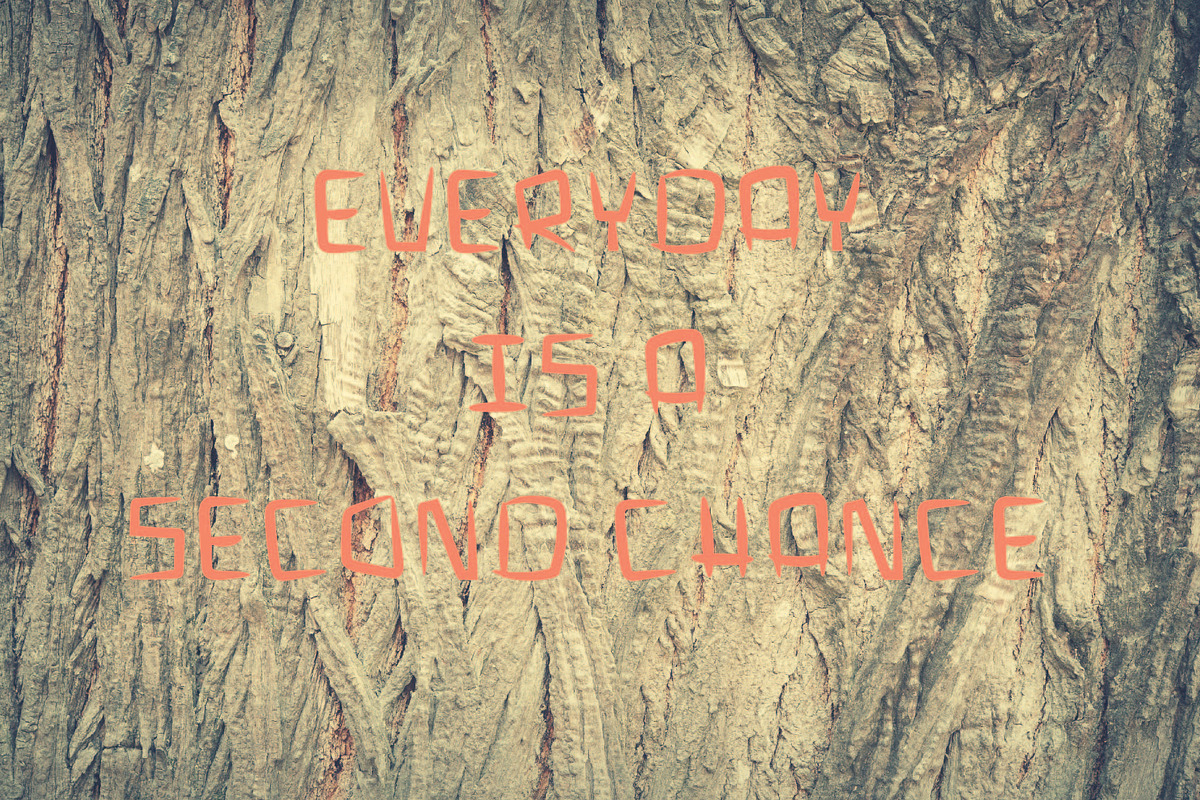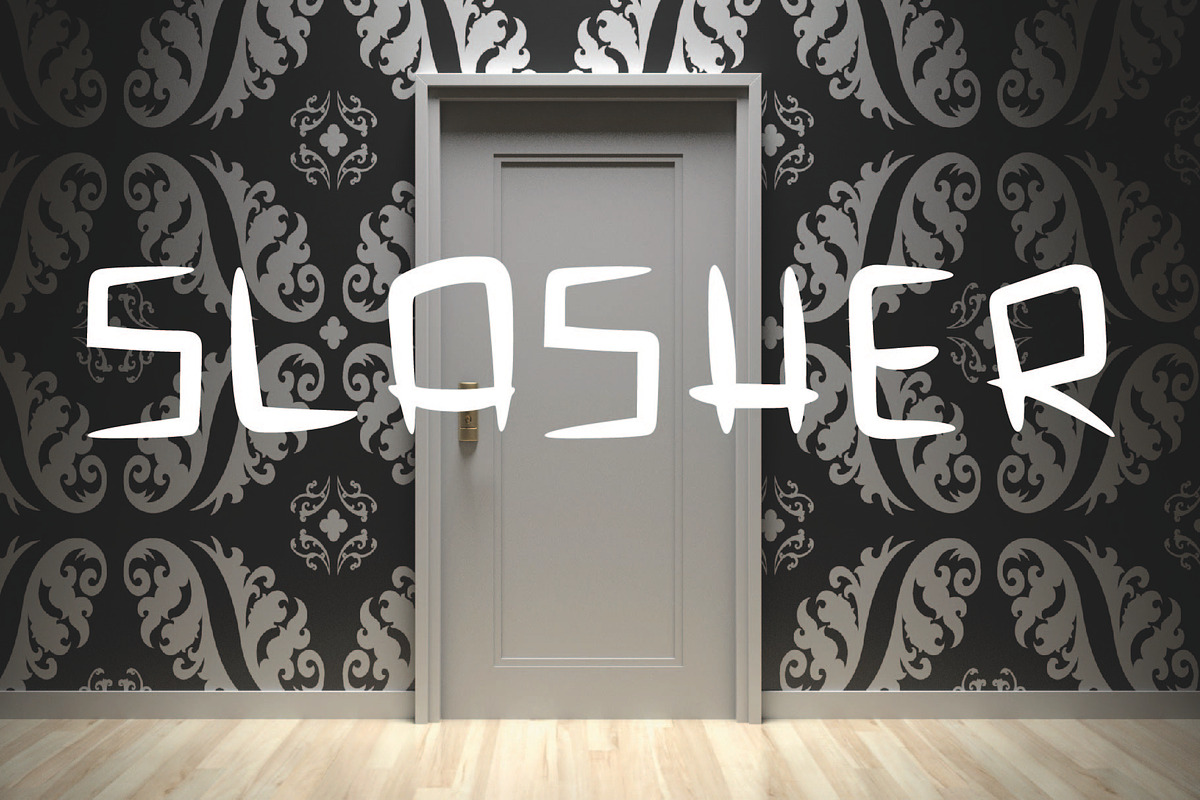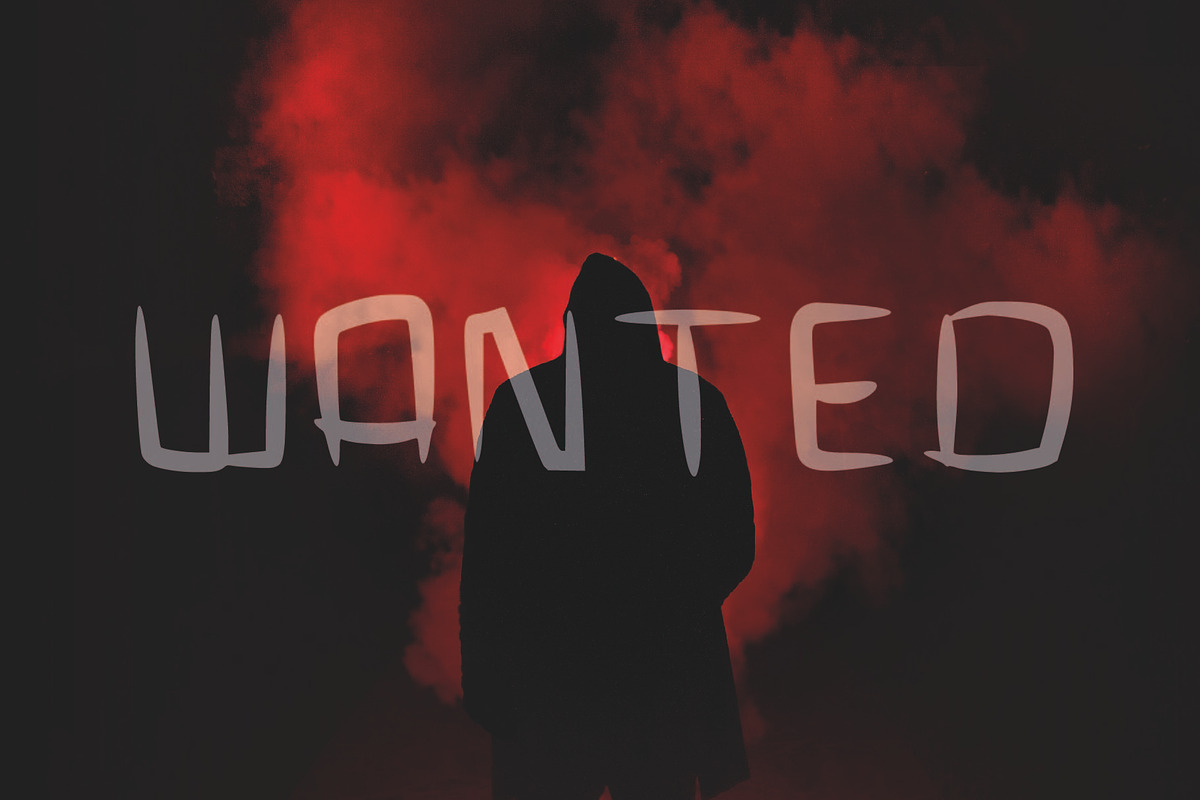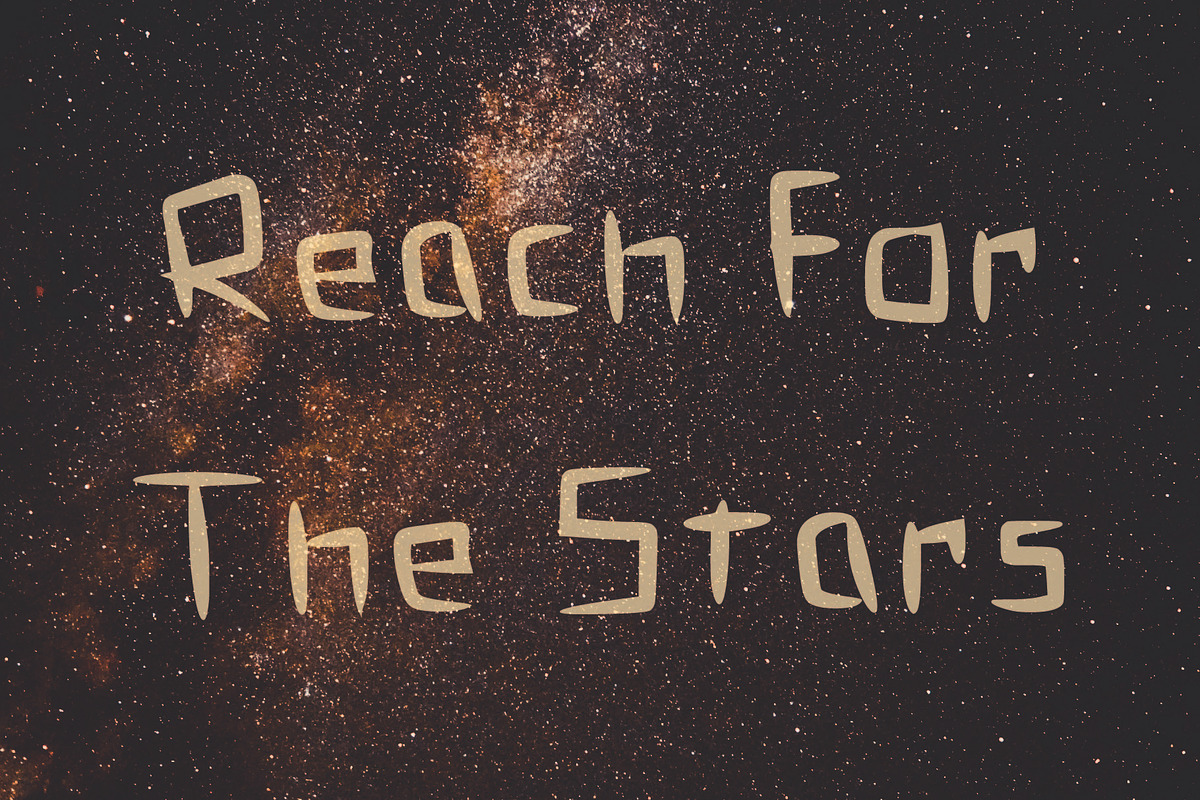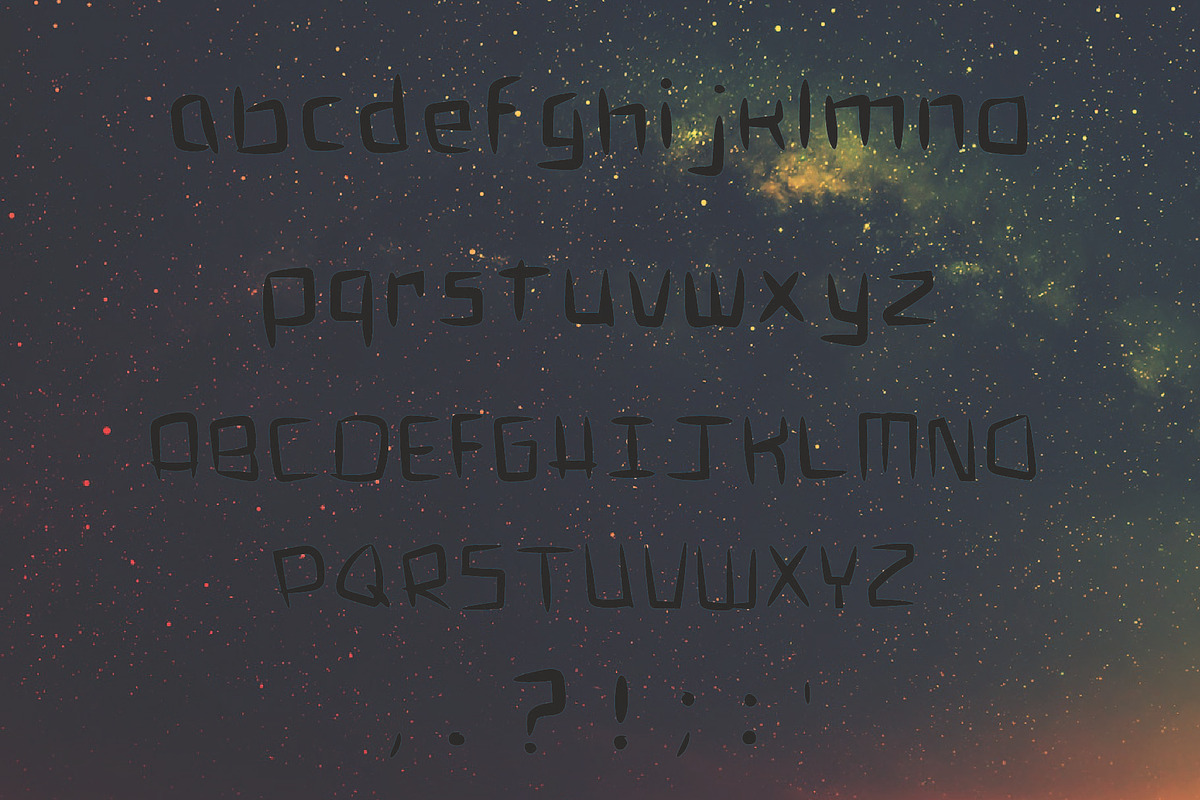
Slasher Font
You can use this Slashy bold font for posters, greeting cards, business cards, logos, books, clothing and more!
Slasher Font by Mel's Shop fits naturally into Branding, posters, packaging, typography.